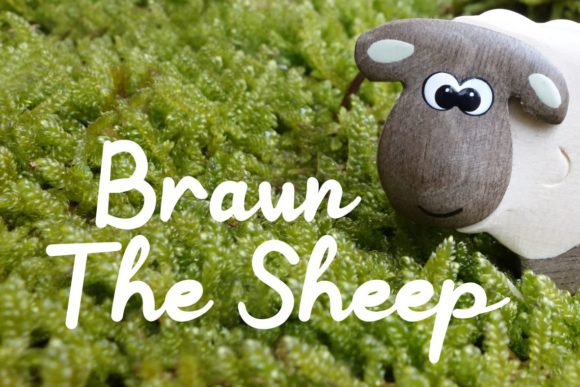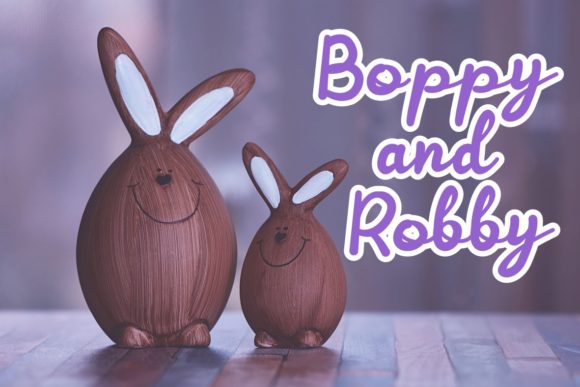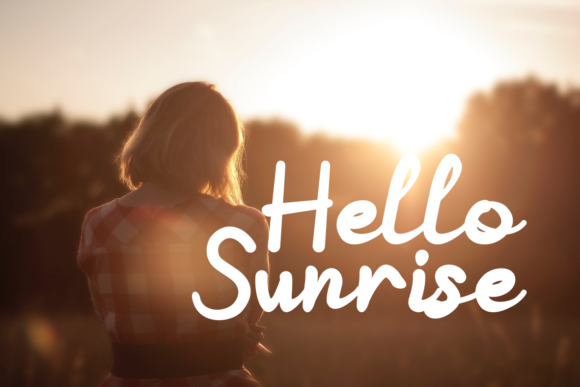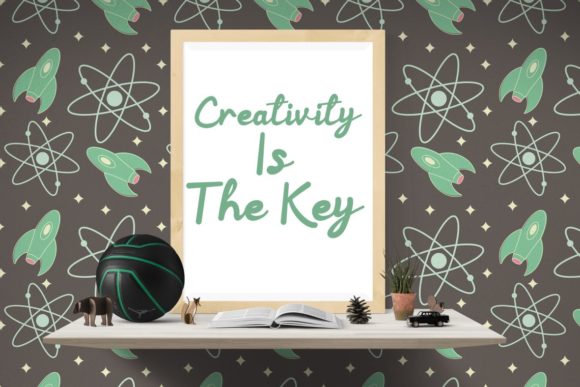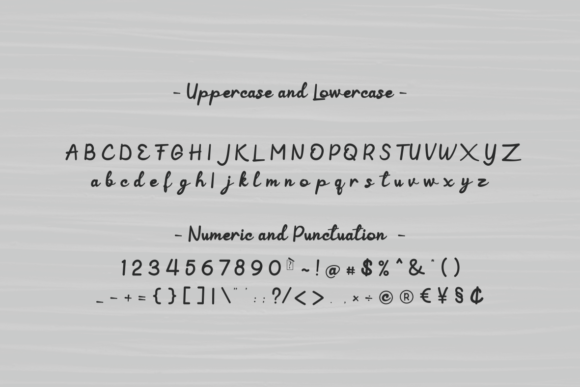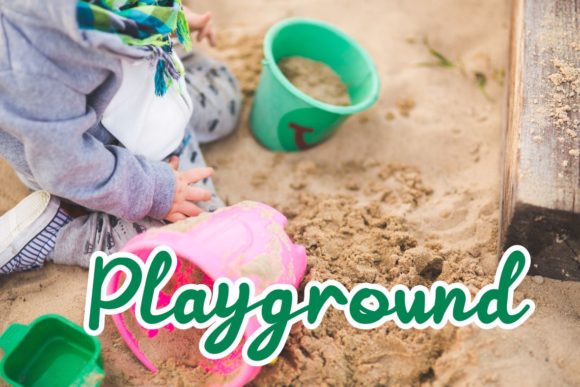
Introducing Fanilla Font: The Magical Handwritten Font for Elevating Design Projects
Are you a designer or crafter looking for a font that can add a touch of elegance and friendliness to your design projects? Look no further than Fanilla Font! This magical handwritten font is designed to elevate a wide range of design projects to the highest level, making it perfect for branding, headings, wedding designs, invitations, signatures, logos, labels, and much more.
The Characteristics of Fanilla Font
Fanilla Font is a beautifully crafted handwritten font that exudes elegance and sophistication. Its unique characteristics make it stand out from other fonts, making it perfect for designers and crafters who want to add a personal touch to their designs. Here are some of the key characteristics of Fanilla Font:
- Elegant and Friendly Tone: Fanilla Font has a perfect balance of elegance and friendliness, making it suitable for a wide range of design projects.
- Handwritten Style: The font has a beautiful handwritten style that gives it a personal and unique touch.
- Versatile: Fanilla Font is highly versatile and can be used for various design projects, from branding and headings to wedding designs and invitations.
Uses of Fanilla Font
Fanilla Font is a highly versatile font that can be used for a wide range of design projects. Here are some of the ways you can use Fanilla Font:
- Branding: Use Fanilla Font to create stunning brand logos, business cards, and letterheads that reflect your brand’s personality.
- Wedding Designs: Add a touch of elegance to your wedding designs, including invitations, wedding cards, and ceremony programs.
- Headings and Titles: Use Fanilla Font to create beautiful headings and titles for your blog posts, articles, and social media graphics.
- Invitations and Signatures: Create stunning invitations and signatures that reflect your personality or brand’s personality.
- Logos and Labels: Use Fanilla Font to create unique logos and labels that stand out from the crowd.
Why Choose Fanilla Font?
With so many fonts available, why choose Fanilla Font? Here are some reasons why Fanilla Font stands out:
- Unique and Personal Touch: Fanilla Font has a unique and personal touch that sets it apart from other fonts.
- Elegant and Friendly: The font has a perfect balance of elegance and friendliness, making it suitable for a wide range of design projects.
- Highly Versatile: Fanilla Font is highly versatile and can be used for various design projects.
- Easy to Read: The font is easy to read, making it perfect for body text and headings.
Tips for Using Fanilla Font
Here are some tips for using Fanilla Font effectively:
- Pair it with Other Fonts: Pair Fanilla Font with other fonts to create a unique and visually appealing design.
- Use it for Headings and Titles: Use Fanilla Font for headings and titles to add a touch of elegance to your designs.
- Experiment with Colors: Experiment with different colors to find the perfect combination that complements Fanilla Font.
In conclusion, Fanilla Font is a magical handwritten font that can elevate a wide range of design projects to the highest level. Its elegant and friendly tone, versatility, and unique characteristics make it perfect for designers and crafters who want to add a personal touch to their designs. Whether you’re creating branding, wedding designs, headings, or invitations, Fanilla Font is a great choice. So why not give it a try and see how it can transform your designs?